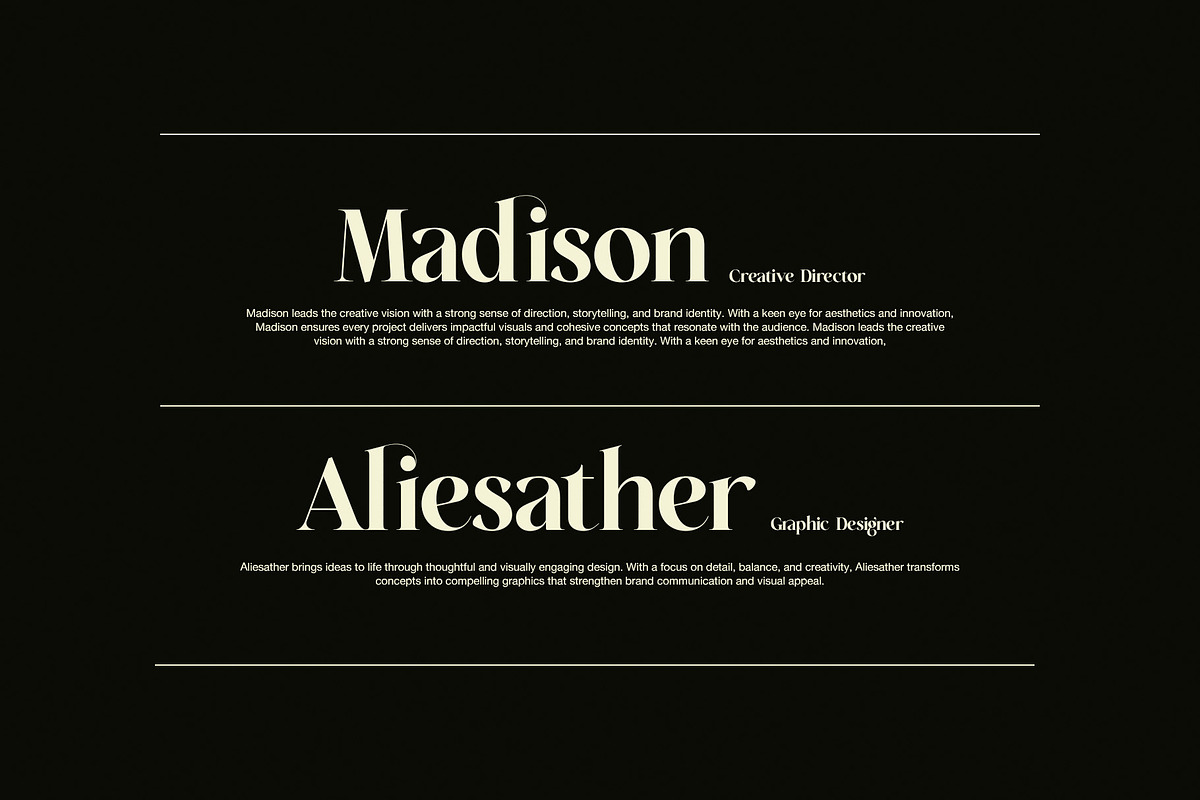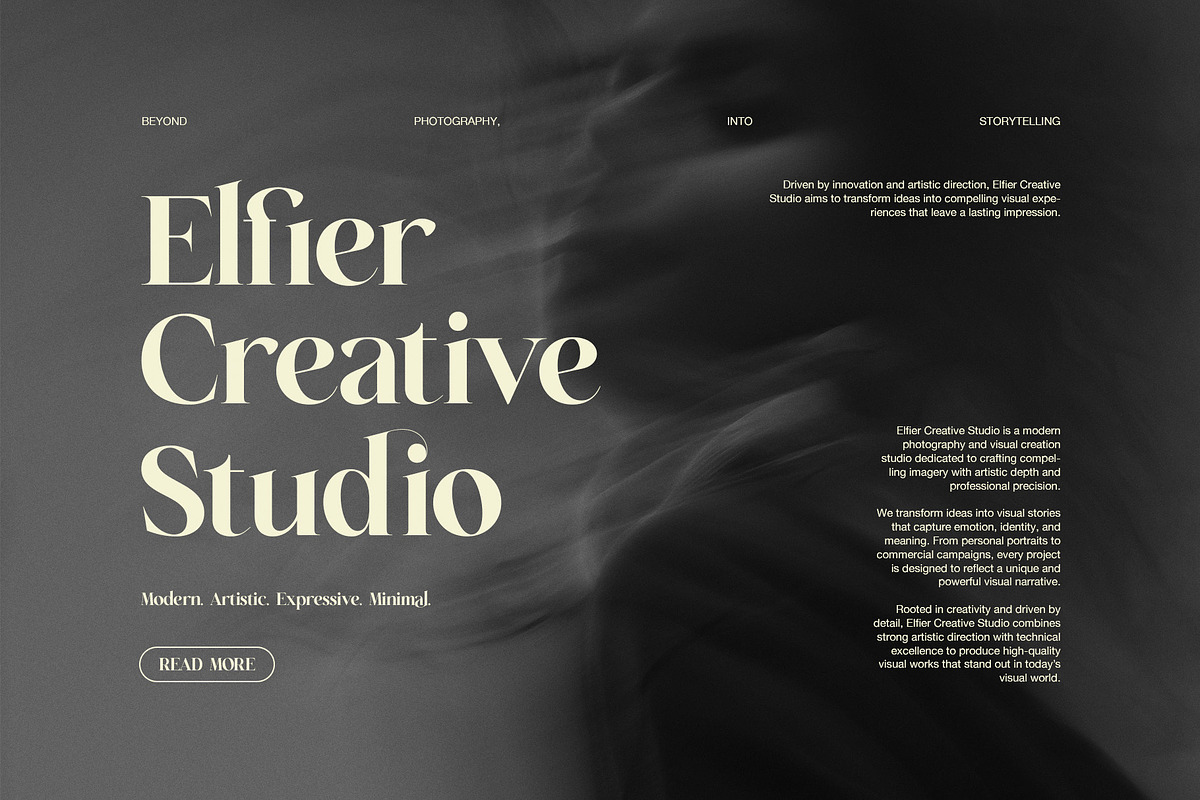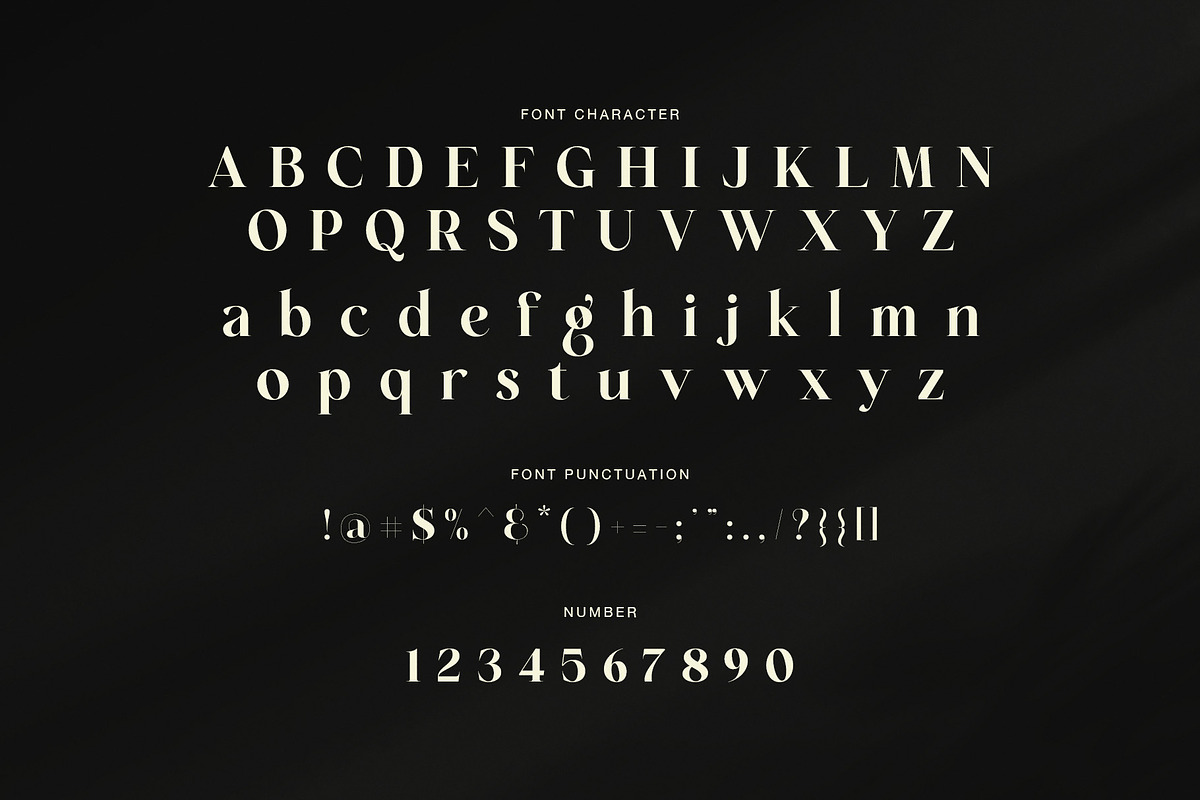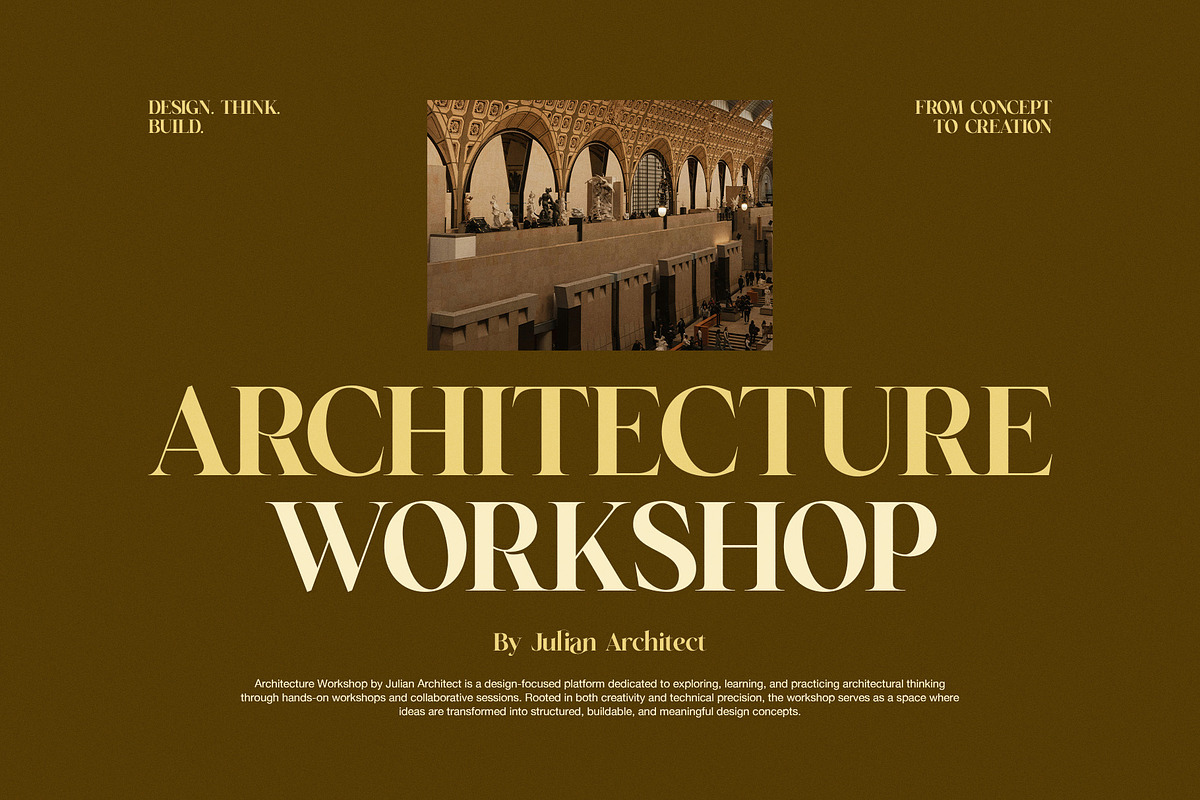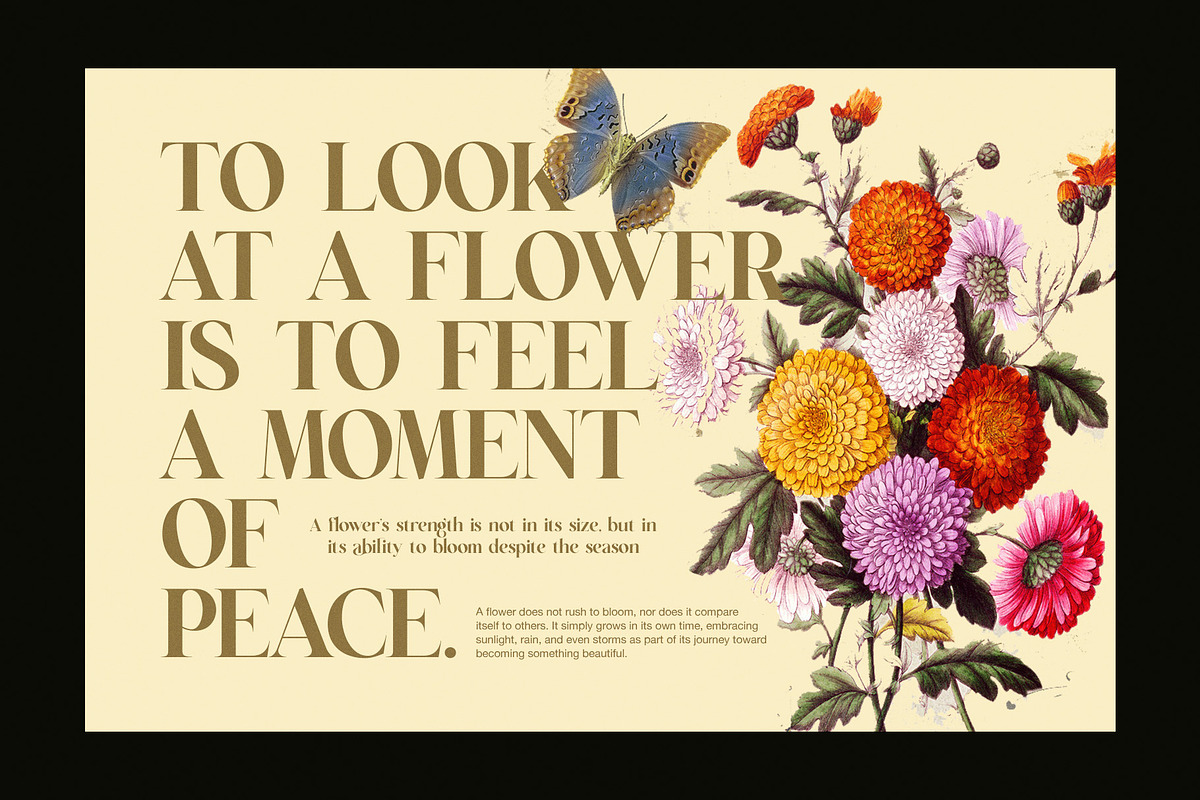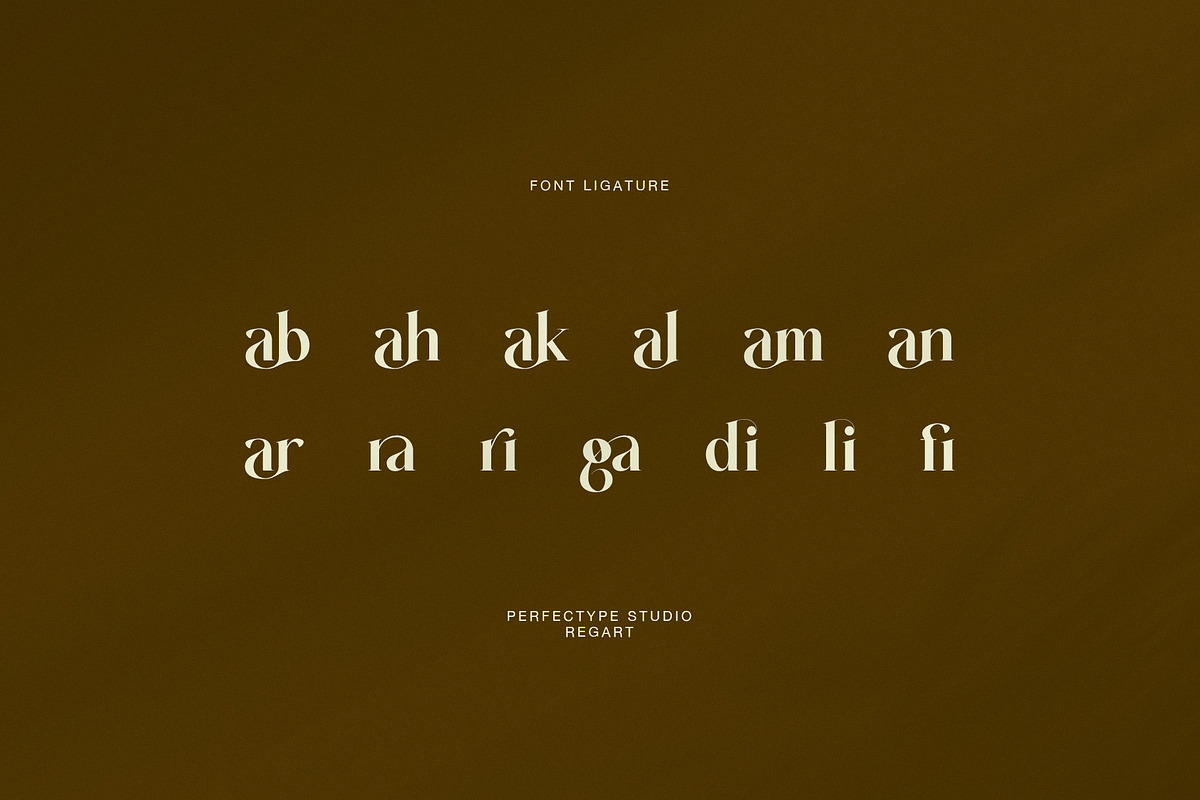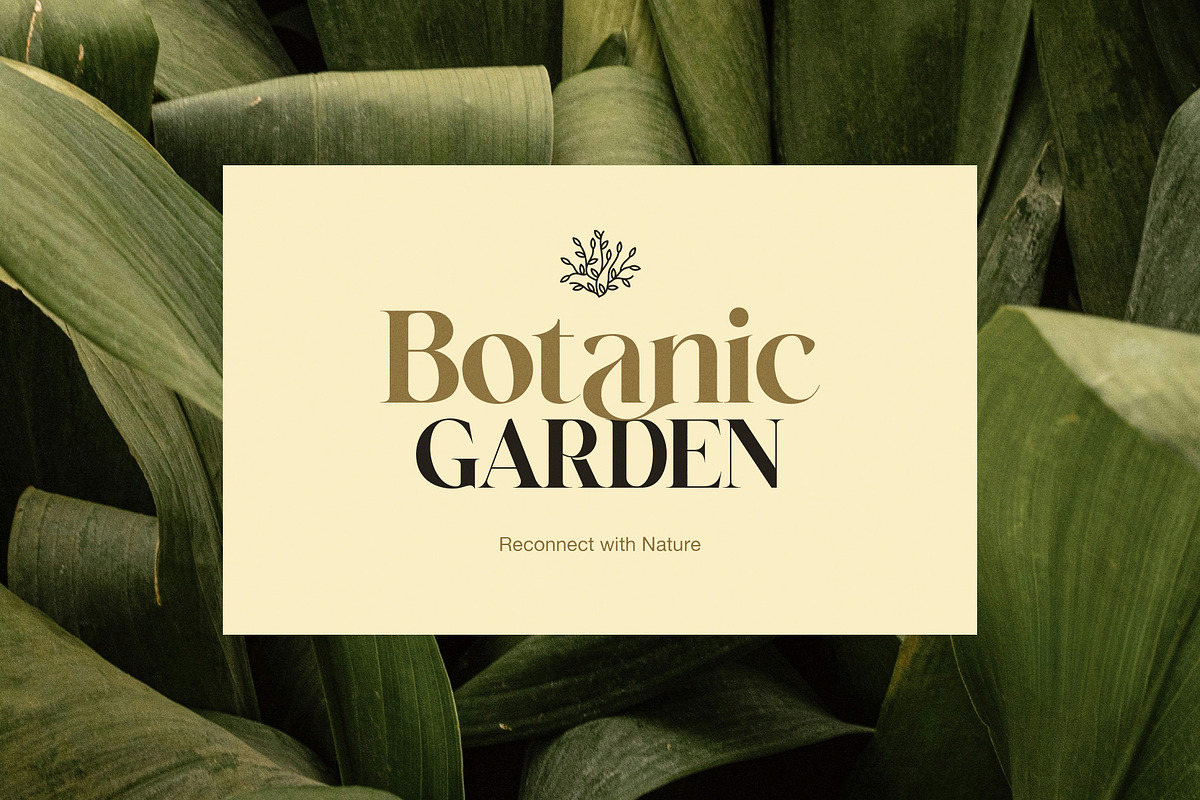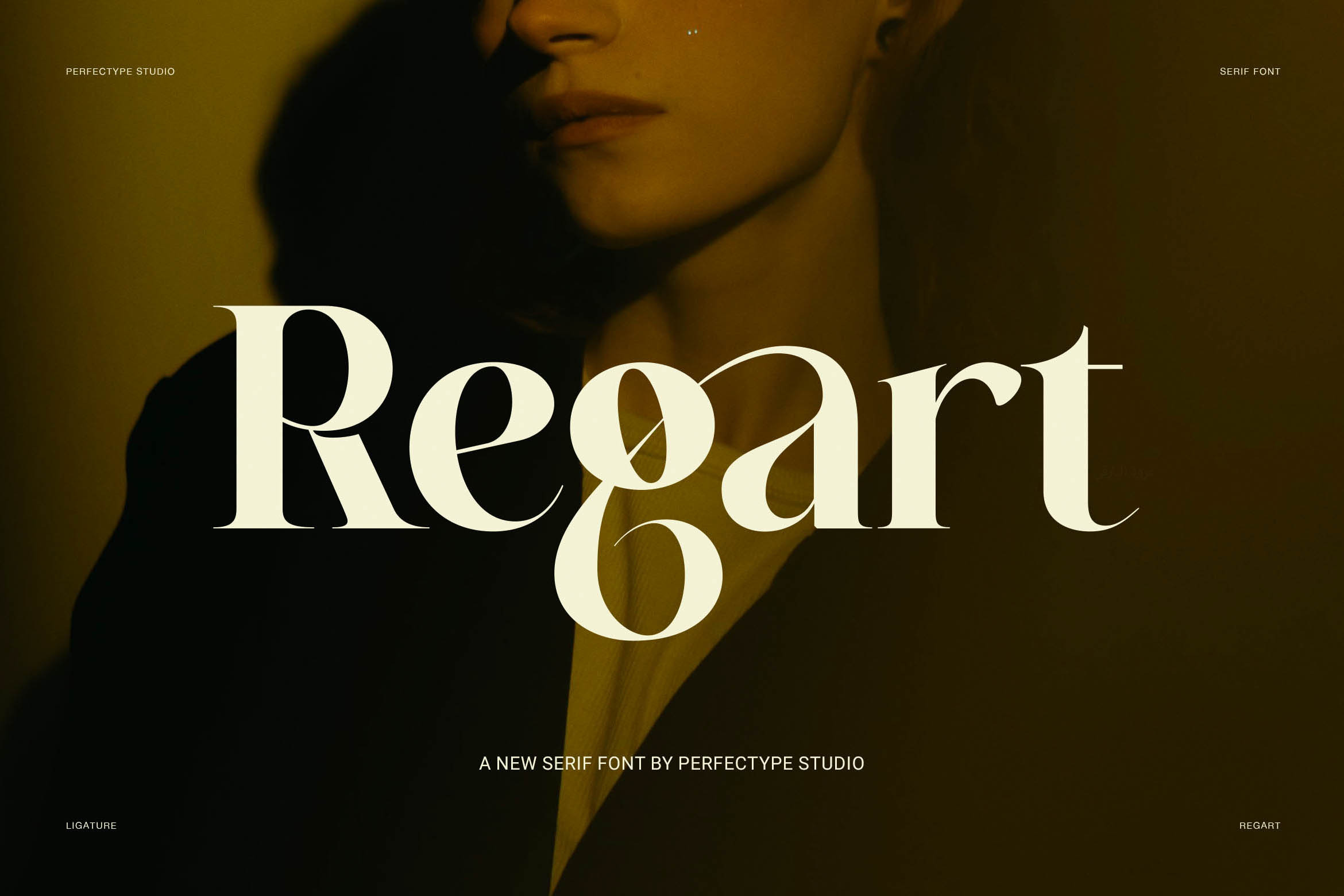
Regart Luxury Serif Font
Regart is a luxury serif font made for brands that need an elegant, bold, and refined visual style. With graceful curves, sharp contrast, and stylish ligatures, this font brings a premium look to every design. It feels classic at first glance. However, its modern details make it fresh, expressive, and ready for today’s creative projects.
Elegant Letterform Style
The letterforms have strong thick and thin strokes, so each word looks clear and beautiful. In addition, the soft curves give Regart a warm and graceful mood. The serif details add a high-end feel, while the unique ligatures create a more custom and artistic result. Because of this, Regart works very well for designs that need charm, class, and strong visual impact.
Perfect Design Uses
This elegant serif font is a great choice for many creative uses, such as:
Luxury branding and logo design
Wedding invitations and romantic stationery
Fashion magazine titles and editorial layouts
Beauty product packaging
Boutique labels and premium business cards
Advertising, posters, and social media graphics
Floral, botanical, and lifestyle designs
Premium Display Font
Regart also looks beautiful in large display text. Therefore, it is perfect for headlines, brand names, quotes, and title layouts. The font can create a soft feminine style, yet it can also look bold and confident when used with large spacing and clean layouts. Moreover, its refined shape helps designers build a strong brand identity without adding too many extra elements.
Luxury Branding Benefits
Use Regart when you want your design to feel elegant, luxurious, and memorable. It is especially suitable for premium brands, wedding studios, fashion labels, beauty products, creative studios, and stylish packaging projects. As a result, this luxury serif font can help your work look more polished, more professional, and more attractive to buyers.
Timeless Serif Character
Regart is not only beautiful but also versatile. It gives every project a timeless serif style with a modern artistic touch. Therefore, it is a strong choice for designers who want a luxury serif font with charm, balance, and lasting beauty.